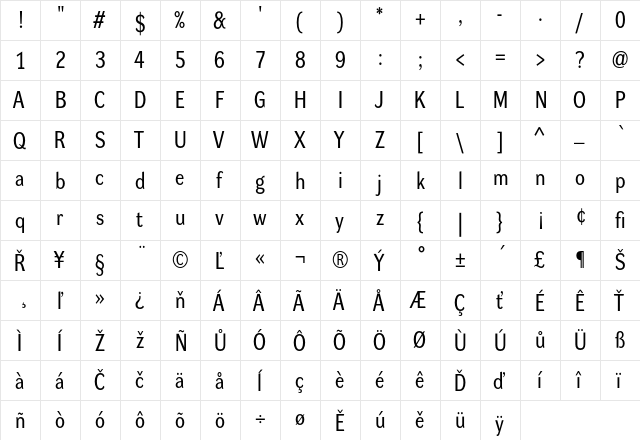
Dynamo RM Regular
Design Context for Dynamo RM Typeface
Dynamo RM is a composed and adaptable typeface that performs quietly and consistently across a wide range of design contexts.